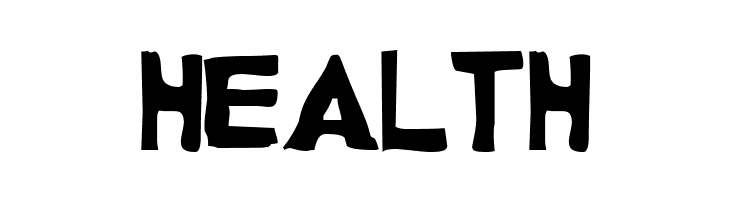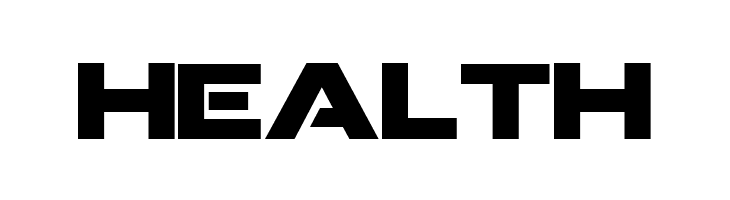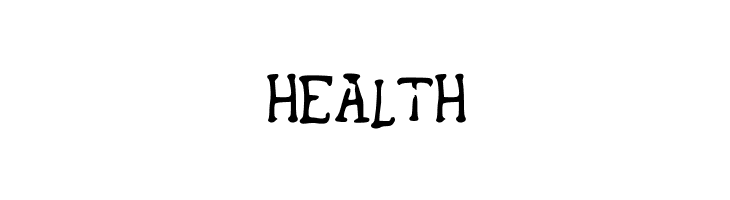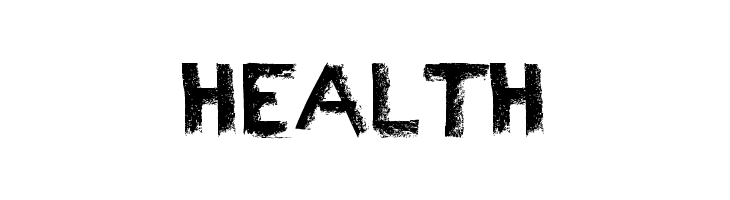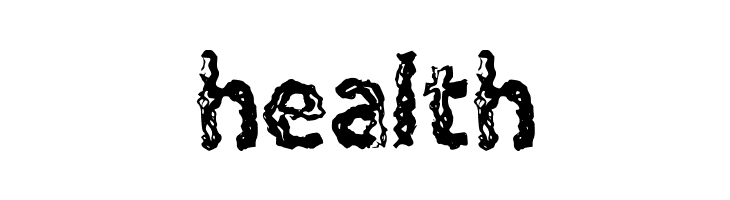
Coalition Font
A bold, distressed font with a modern, industrial aesthetic.
DK Coal Brush Regular Font
A bold, brush-style font with a hand-drawn, artistic look.
CoalhandLukeTRIAL Font
A textured, brush-like script font with a dynamic and expressive style.
Coal Train JL Font
A bold, decorative font with artistic flourishes and playful twists.
Thai Coala - Personal Use Font
A bold, cursive font with a playful, dynamic, and slightly distressed appearance.
Coalpen Font
A dynamic, handwritten script font with fluid, connected letters and varying stroke thickness.
COALABEER Font
A rugged, hand-drawn font with bold, textured strokes.
JVNE CoalWorks PERSONAL USE Font
A bold, geometric font with a modern and futuristic design.
Coal Straight Font
A casual, handwritten font with a playful and informal style.
Coal Font
A pixelated, retro-style font with a blocky, geometric appearance.
Coalpen Demo Font
A lively handwritten script with fluid, connected strokes and medium contrast.